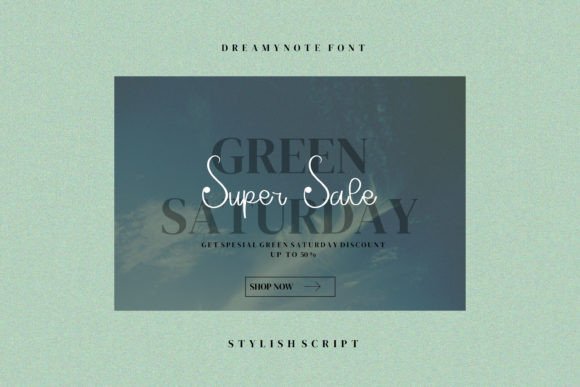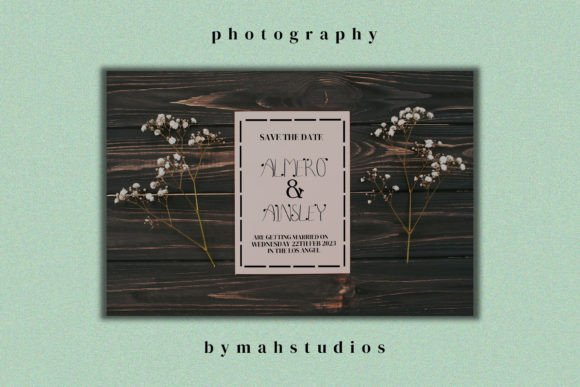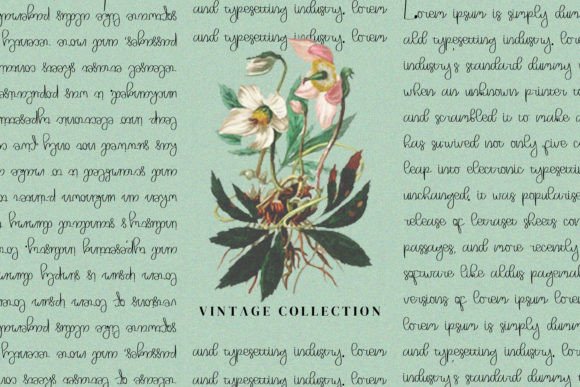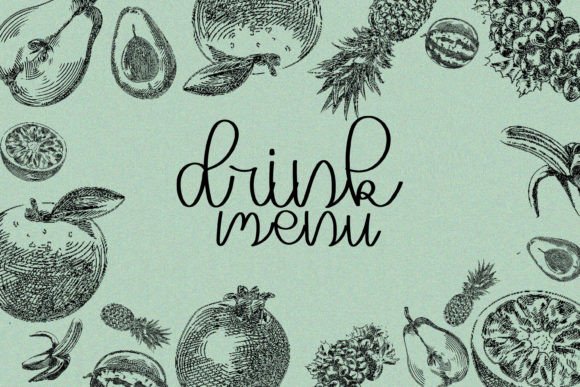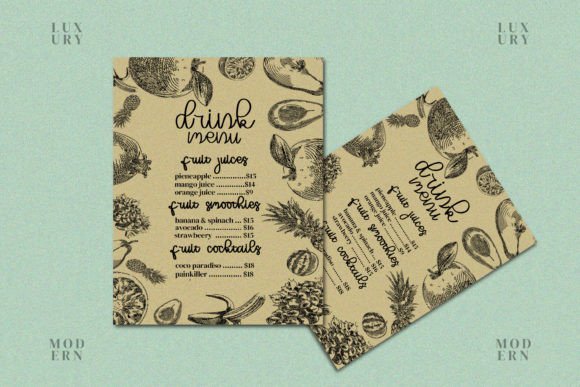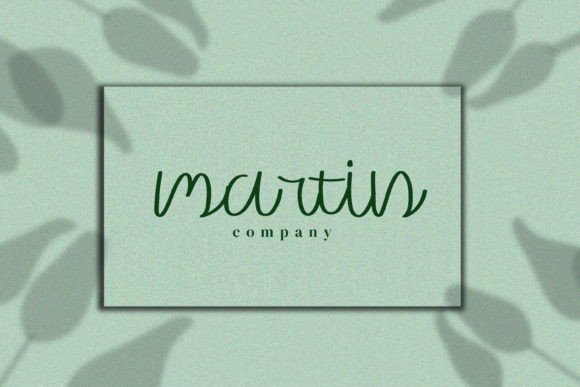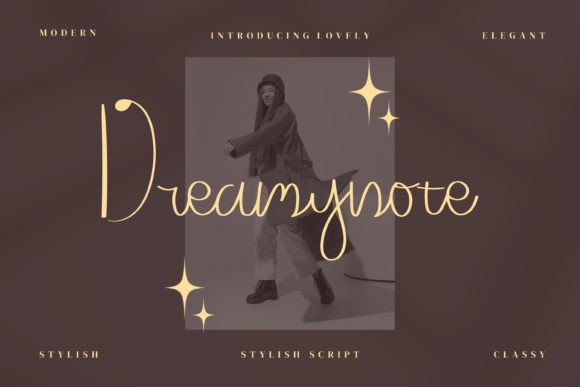
Dreamynote Font: Elevate Your Crafty Ideas with a Cool and Stylish Handwritten Script
Are you a designer, crafter, or DIY enthusiast looking for a unique and stylish font to add a personal touch to your projects? Look no further than Dreamynote Font, a cool and stylish handwritten script font that’s perfect for bringing your crafty ideas to life. In this article, we’ll explore the features and benefits of Dreamynote Font, and show you how to incorporate it into your creative projects.
What is Dreamynote Font?
Dreamynote Font is a beautifully designed handwritten script font that’s perfect for adding a touch of elegance and sophistication to your projects. With its flowing lines and cursive strokes, this font is ideal for creating eye-catching headings, titles, and text that will make your designs stand out from the crowd.
Key Features of Dreamynote Font
• Handwritten script font: Dreamynote Font is a genuine handwritten script font, giving your designs a personal and unique touch.
• Cool and stylish: This font is perfect for designers and crafters who want to add a cool and stylish vibe to their projects.
• Elegant and sophisticated: With its flowing lines and cursive strokes, Dreamynote Font adds an touch of elegance and sophistication to your designs.
• Perfect for crafty ideas: Whether you’re working on a DIY project, crafting a handmade card, or designing a blog post, Dreamynote Font is the perfect choice.
Benefits of Using Dreamynote Font
So why should you choose Dreamynote Font for your next project? Here are just a few benefits of using this amazing font:
• Adds a personal touch: With Dreamynote Font, you can add a personal touch to your designs that will make them stand out from the crowd.
• Enhances creativity: This font is perfect for designers and crafters who want to express their creativity and add a unique touch to their projects.
• Easy to read: Despite its elegant and cursive strokes, Dreamynote Font is easy to read, making it perfect for body text and headings.
• Versatile: Whether you’re designing a blog post, crafting a handmade card, or creating a social media graphic, Dreamynote Font is versatile enough to fit any project.
Dreamynote Font is a cool and stylish handwritten script font that’s perfect for designers, crafters, and DIY enthusiasts. With its elegant and sophisticated strokes, this font adds a personal touch to your designs that will make them stand out from the crowd. Whether you’re working on a crafty project, designing a blog post, or crafting a handmade card, Dreamynote Font is the perfect choice. So why wait? Download Dreamynote Font today and start elevating your crafty ideas to the next level!